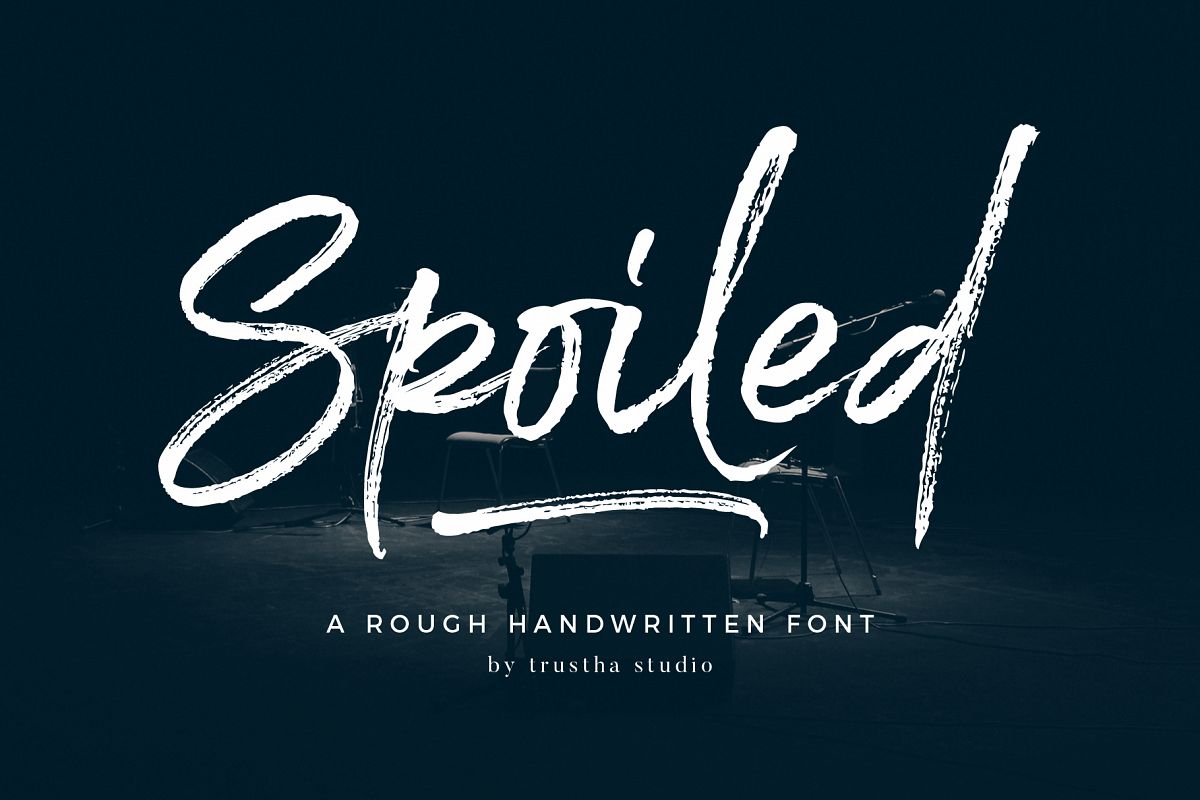
Spoiled Brush Font
The Spoiled is a rough handwritten font. It has a natural style which makes it perfect for branding, advertising, poster design, logo, book covers, magazines, packaging, website headers, greeting cards, apparel designs, merchandise, fashion campaigns, newsletters, album covers, and quote designs and more.